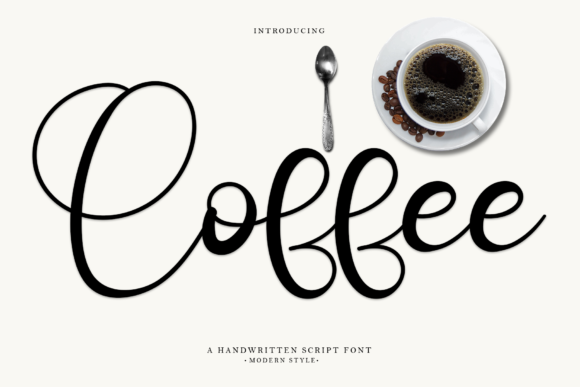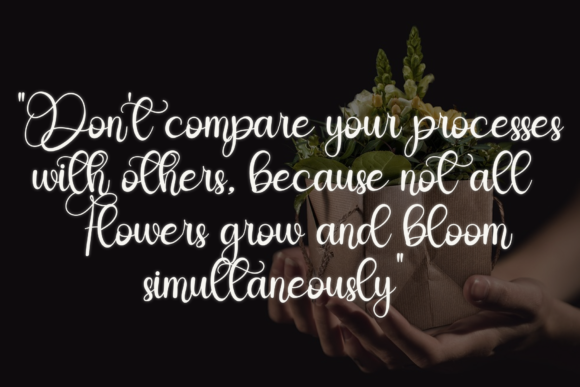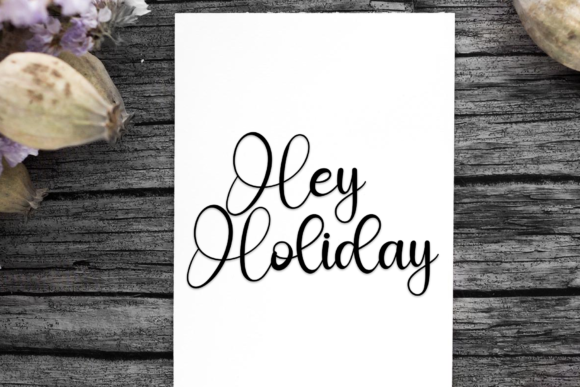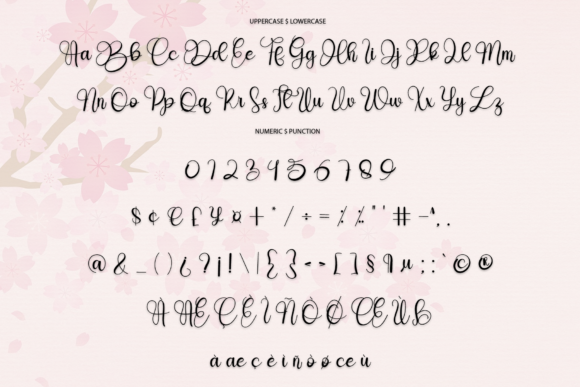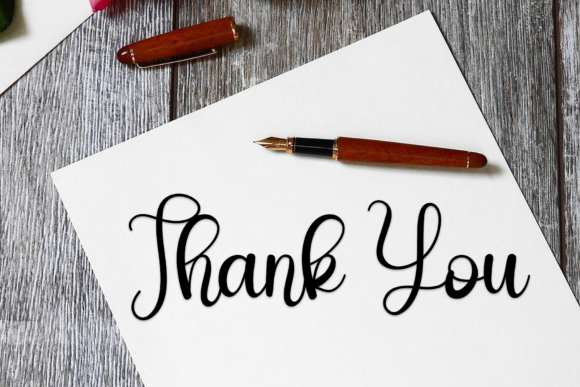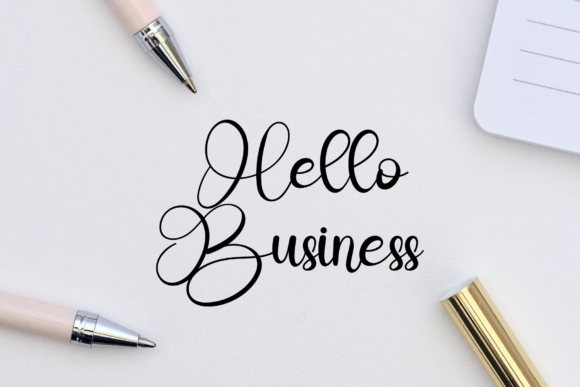
Coffee Font
About Coffee Font
Introducing “Coffee,” a delicate handwritten font that has been meticulously crafted to bring a cool and unique design to your projects. This font is not just a typeface; it’s a carefully designed tool that adds a touch of personality and creativity to your writing. Whether you’re crafting letters, invitations, designing food products, or creating eye-catching titles, Coffee is the perfect choice for infusing your work with a distinctive and stylish charm.
The delicacy of Coffee lies in its handcrafted design, which imparts a sense of uniqueness and authenticity to each character. Picture using this font to write heartfelt letters, where the handwritten touch adds a personal and warm feel. Envision it on invitations, setting the tone for an event with its cool and laid-back vibe. Whether applied to food product labels or titles for creative projects, Coffee becomes a versatile companion for adding that extra layer of character.
Careful craftsmanship is evident in every stroke of Coffee, ensuring that it brings a cohesive and visually appealing look to your projects. Its delicate design captures a balance between elegance and informality, making it suitable for various creative endeavors.
Choose Coffee as the font that delicately transforms your writing into a cool and unique design. Let its carefully crafted strokes enhance the personal touch of your letters, invitations, and more. Allow Coffee to be the creative element that brings a distinctive charm to your projects, making them memorable and visually captivating.